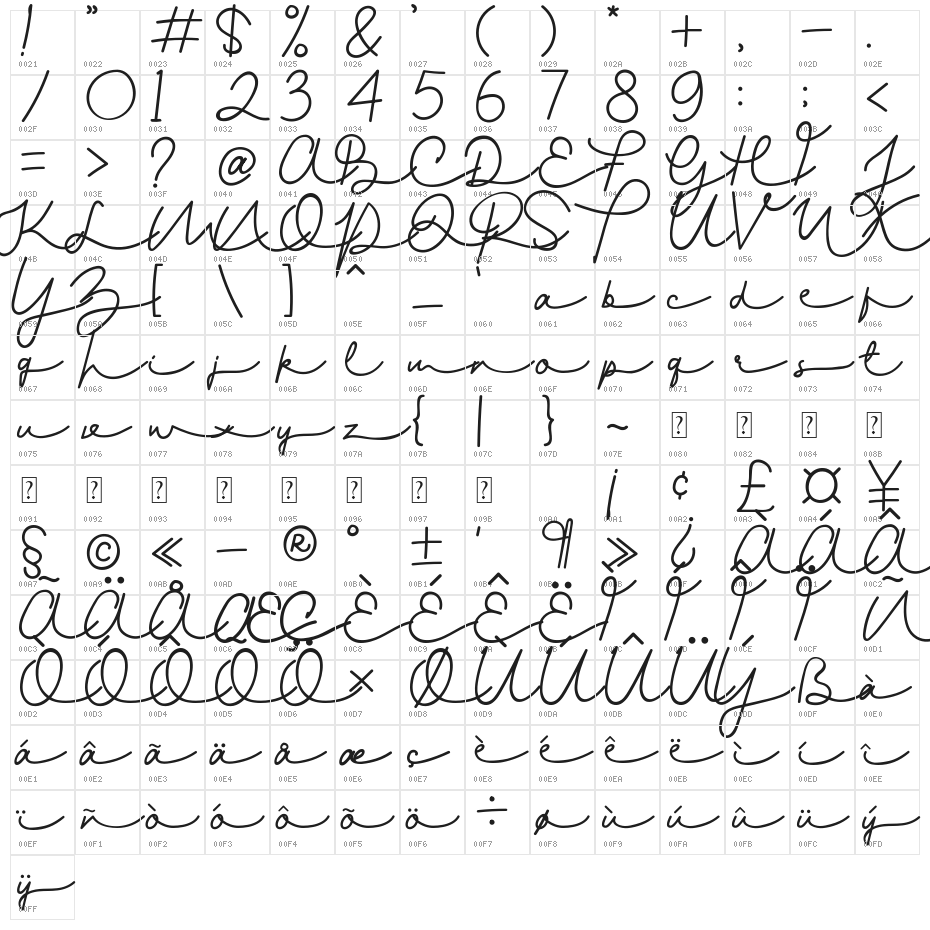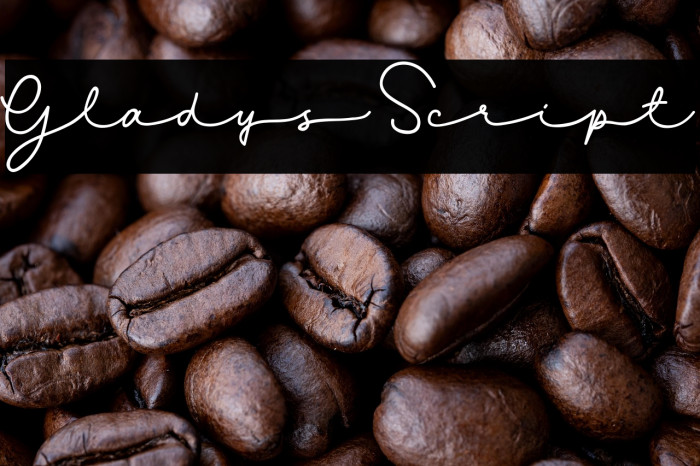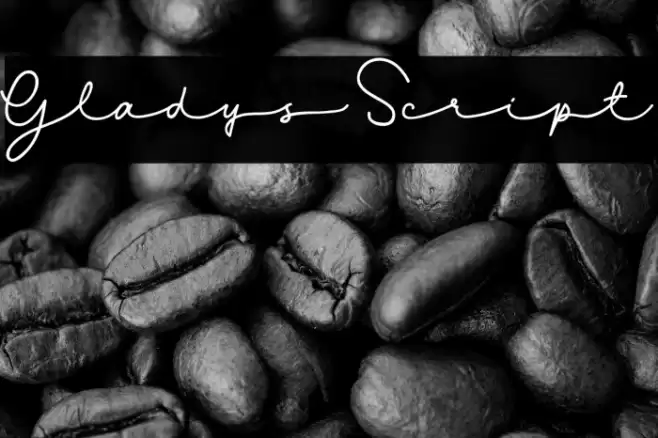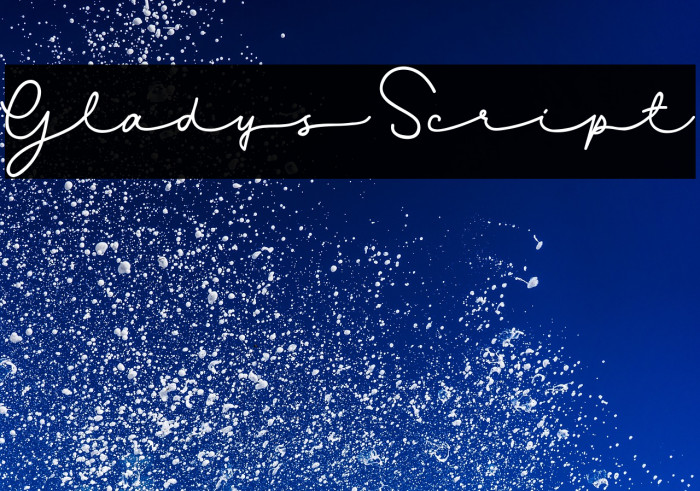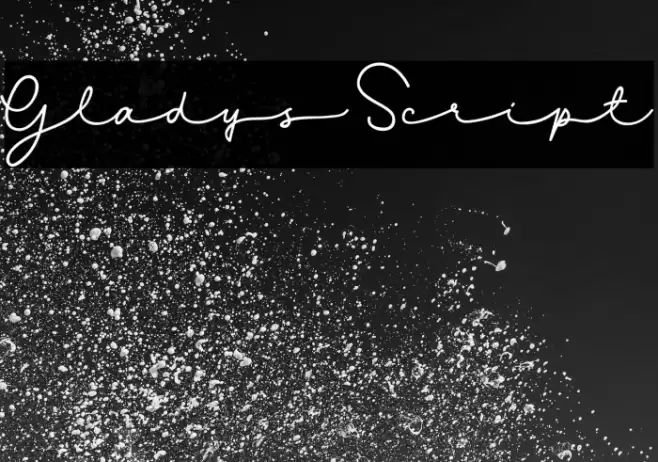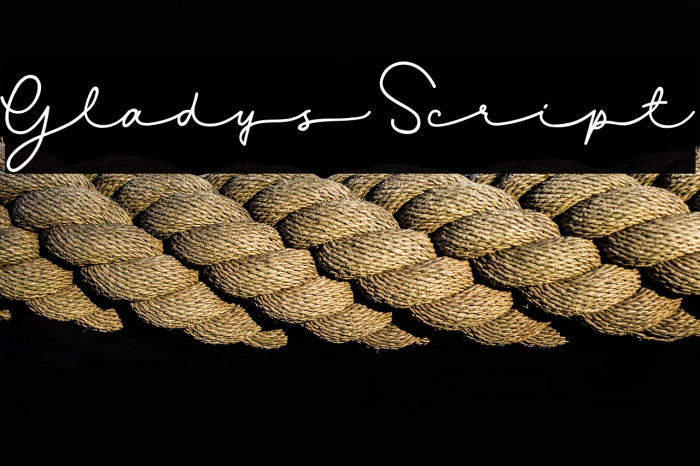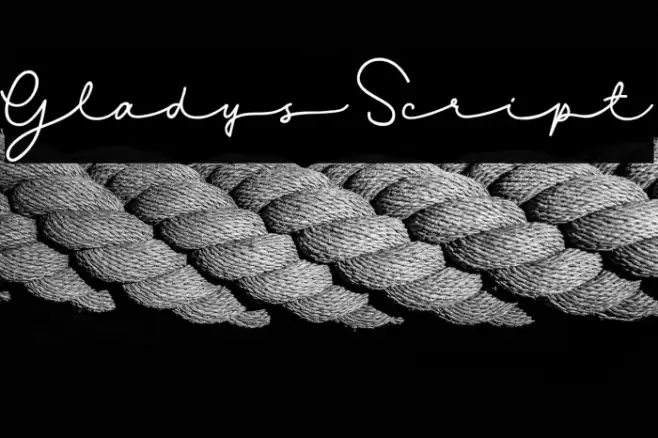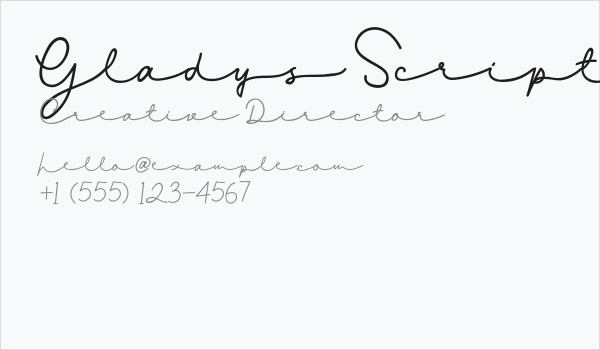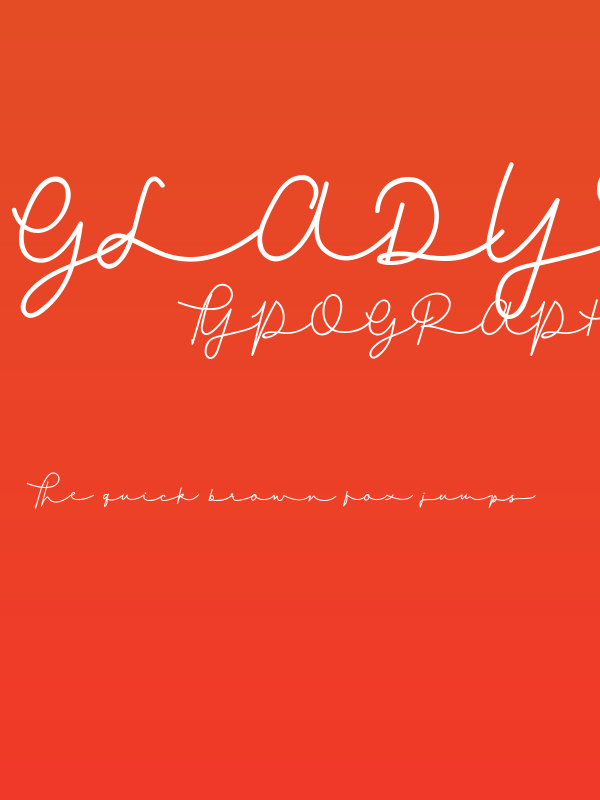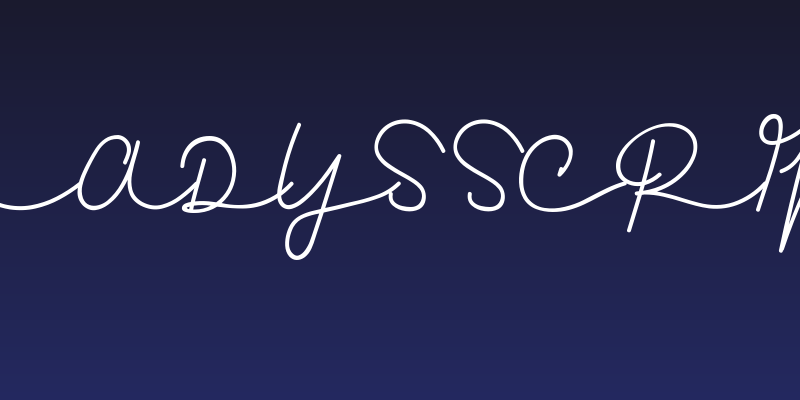
Gladys Script Font
Gladys Script Description
This elegant script font features a flowing, cursive style that mimics natural handwriting. The characters are connected with smooth, continuous strokes, giving it a graceful and fluid appearance. The uppercase letters are slightly more elaborate, with loops and swirls that add a touch of sophistication. The lowercase letters maintain a consistent flow, making the text easy to read while retaining its decorative charm. The numerals and special characters are designed to match the script's overall aesthetic, ensuring a cohesive look across all elements. This font is perfect for projects that require a personal, handwritten touch.
| Use Case | Logos, Invitations, Personal branding |
| Proposed Projects | Ideal for wedding invitations, greeting cards, personal branding, and elegant packaging designs. |